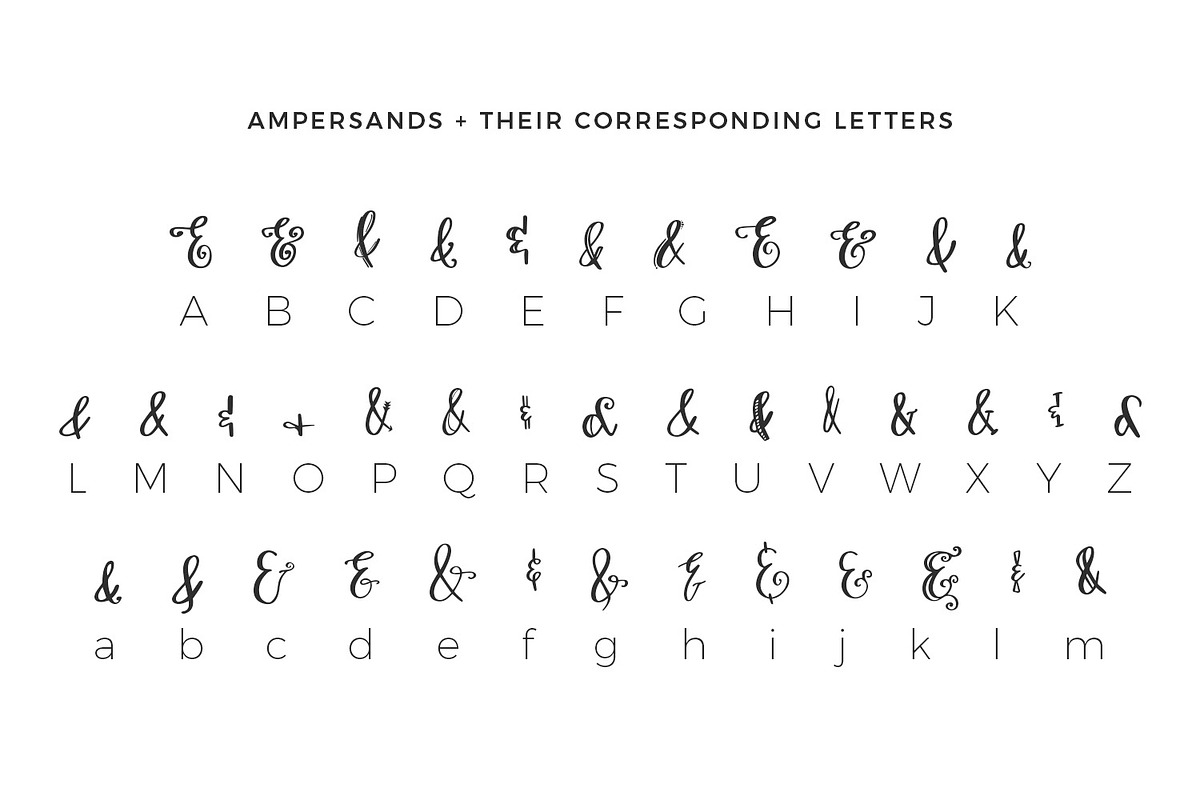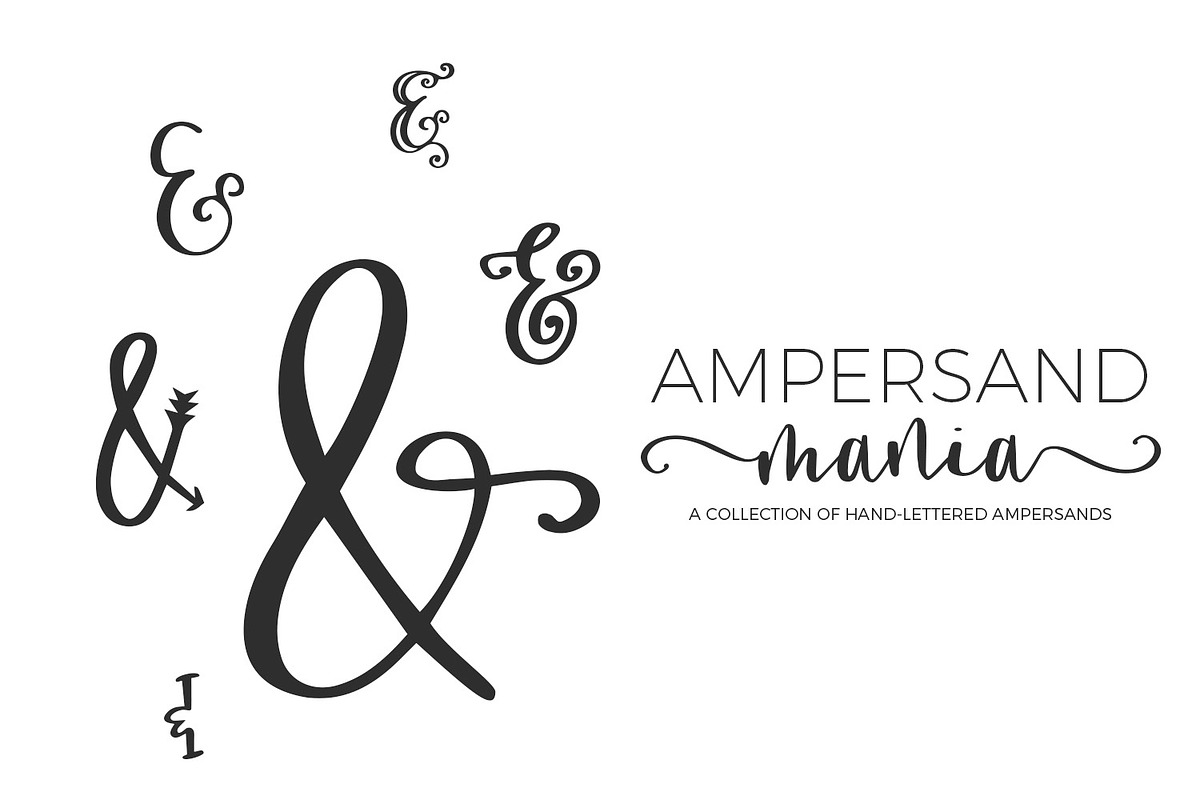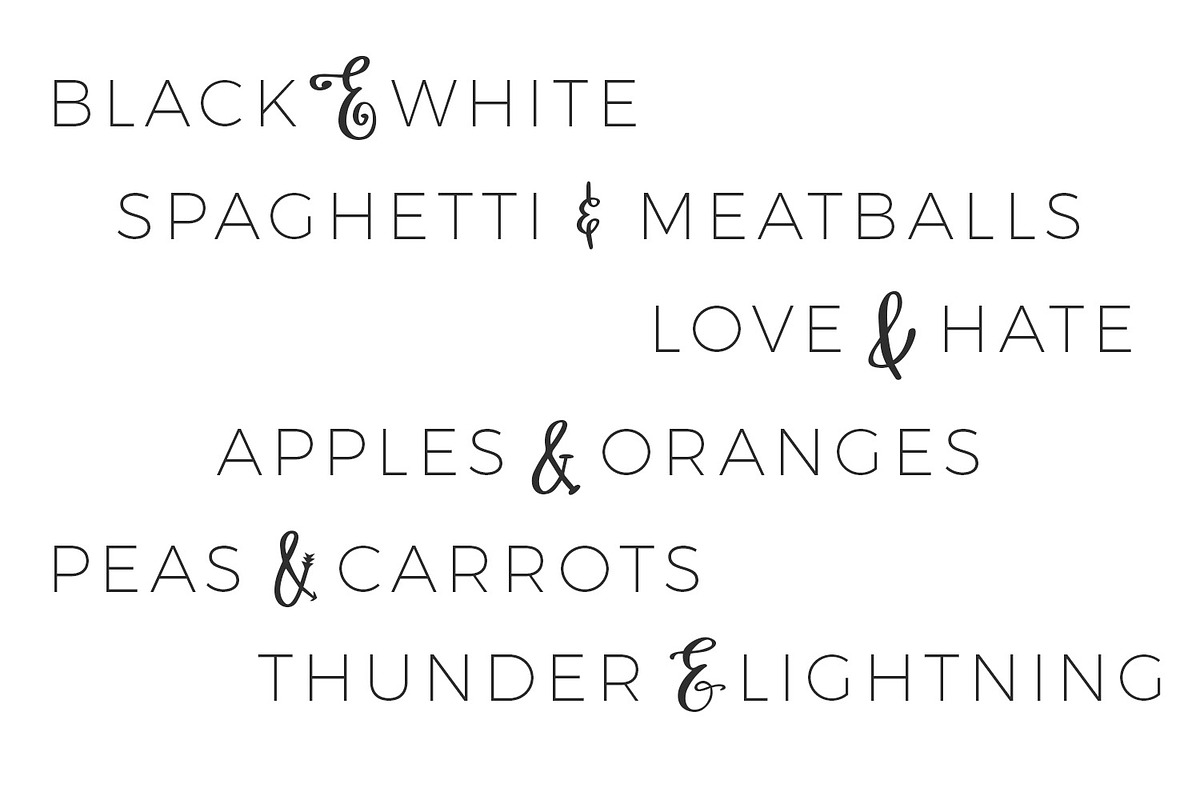
Ampersand Mania
Ampersand Mania — a collection of hand-lettered ampersands to add a little something extra to your next design project. The ampersands are included as .otf and .ttf font files, using letters A-Z and a-m — a little room to grow for some updates later ;)